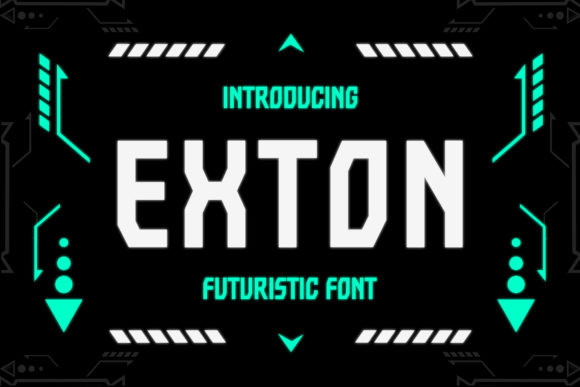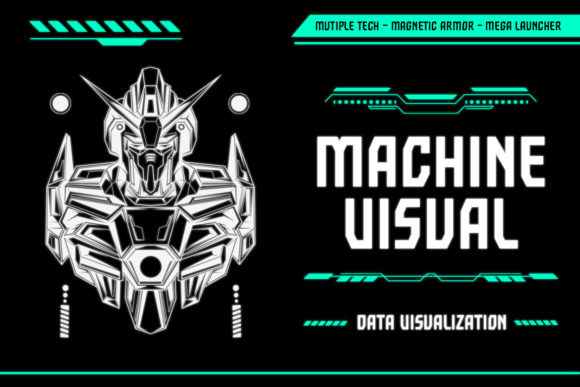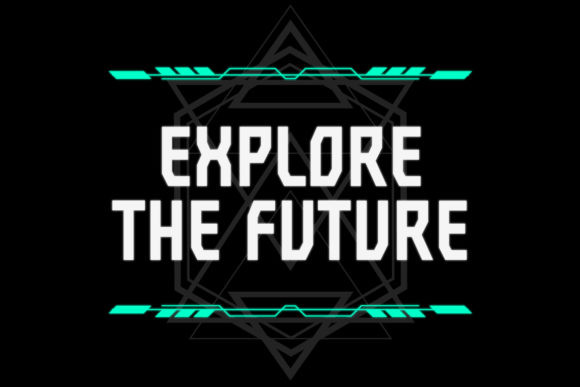
Exton Font
Exton is a sharp, angular and futuristic display font in a robot-like style. Use this font for your designs and explore its endless possibilities.